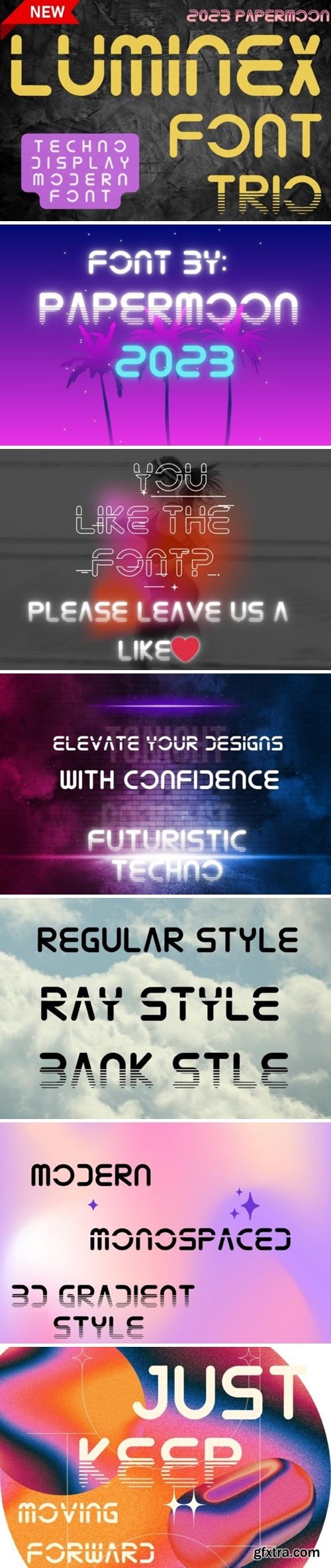
露金Ex 三部曲现代字体
Luminex is a cutting-edge, decorative, and futuristic techno font that’s primed for modern design endeavors. This versatile typeface offers three distinct styles: Modern, Monospaced Laser, and Gradient 3D, catering to a variety of creative applications. Furthermore, it boasts full multilingual character support, ensuring accessibility across diverse languages. Luminex is your ideal choice for branding, logos, stationery, business cards, signage, flyers, brochures, and much more. Its versatility extends across numerous industries, including startups, technology, marketing, insurance, bitcoin, trading, and investment. Rest assured, Luminex Font seamlessly integrates with both PC and Mac systems through a hassle-free installation process. Embrace the future of design with confidence and elevate your creative projects with Luminex!